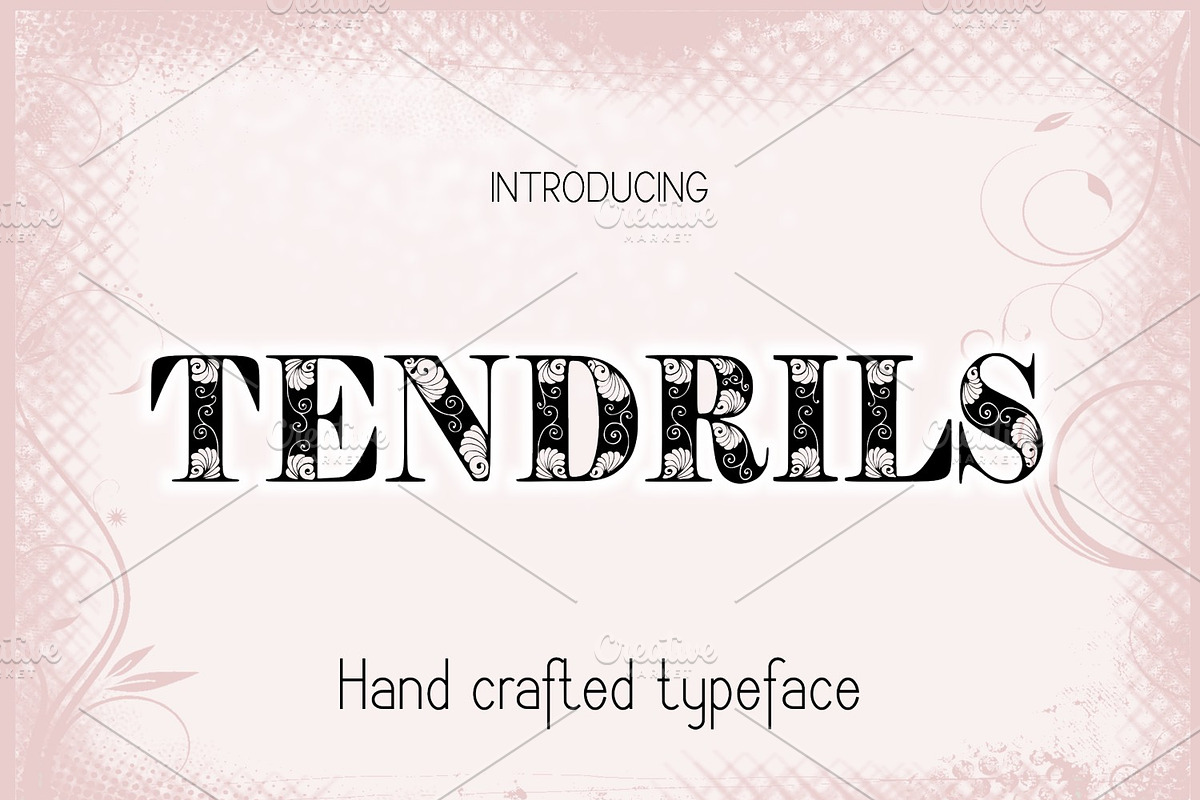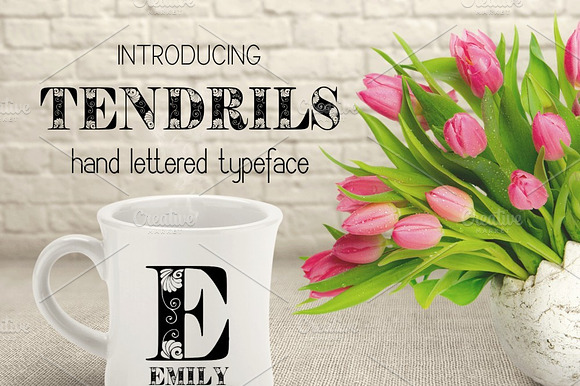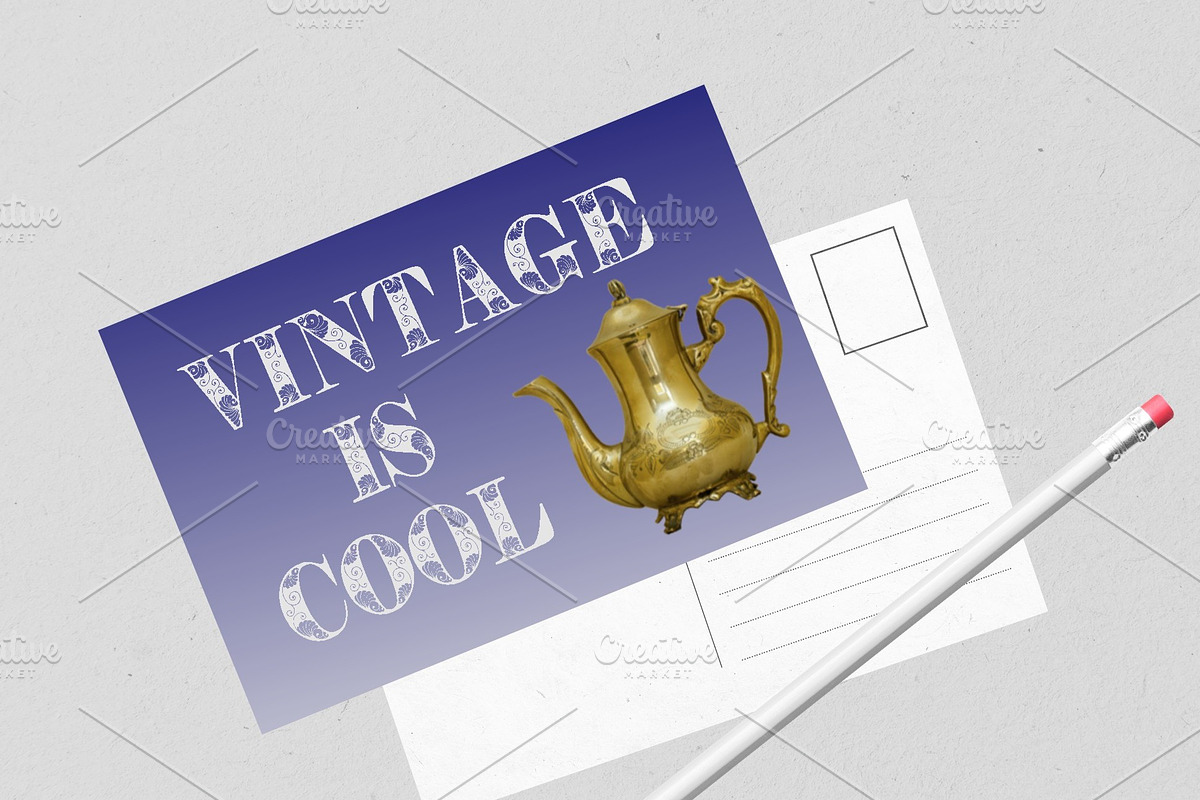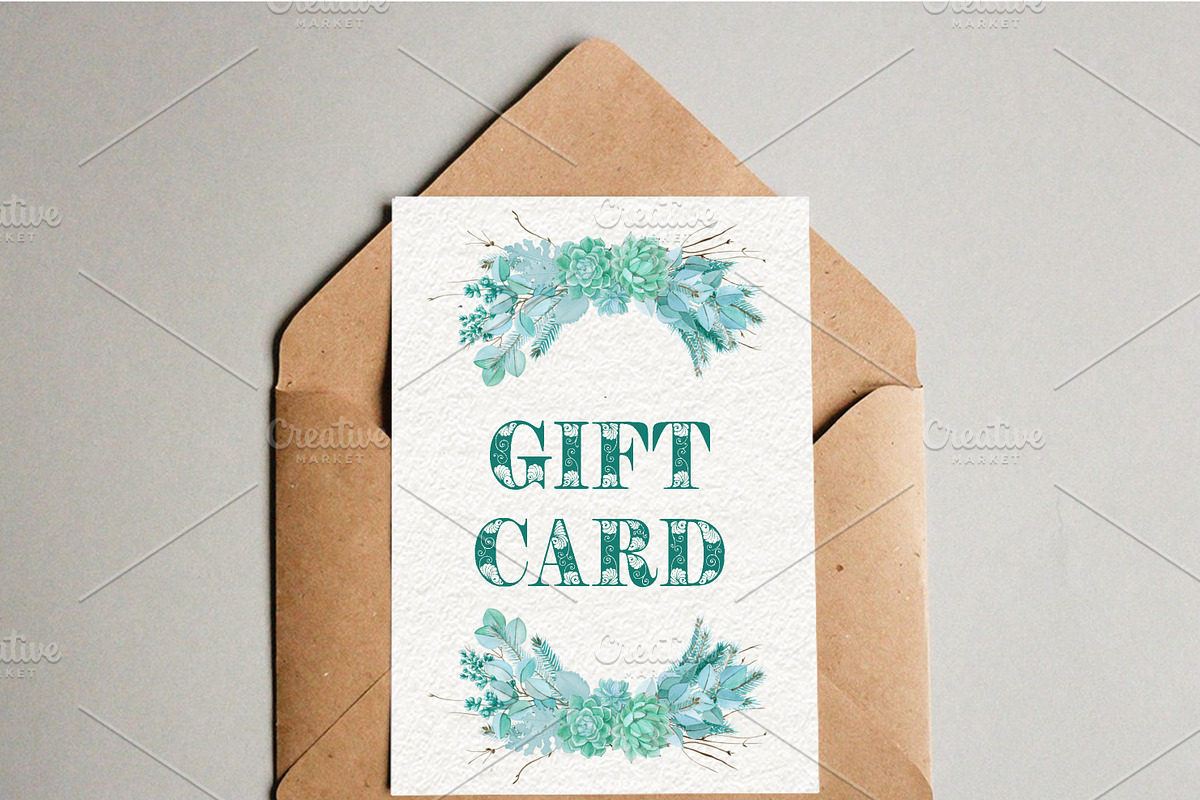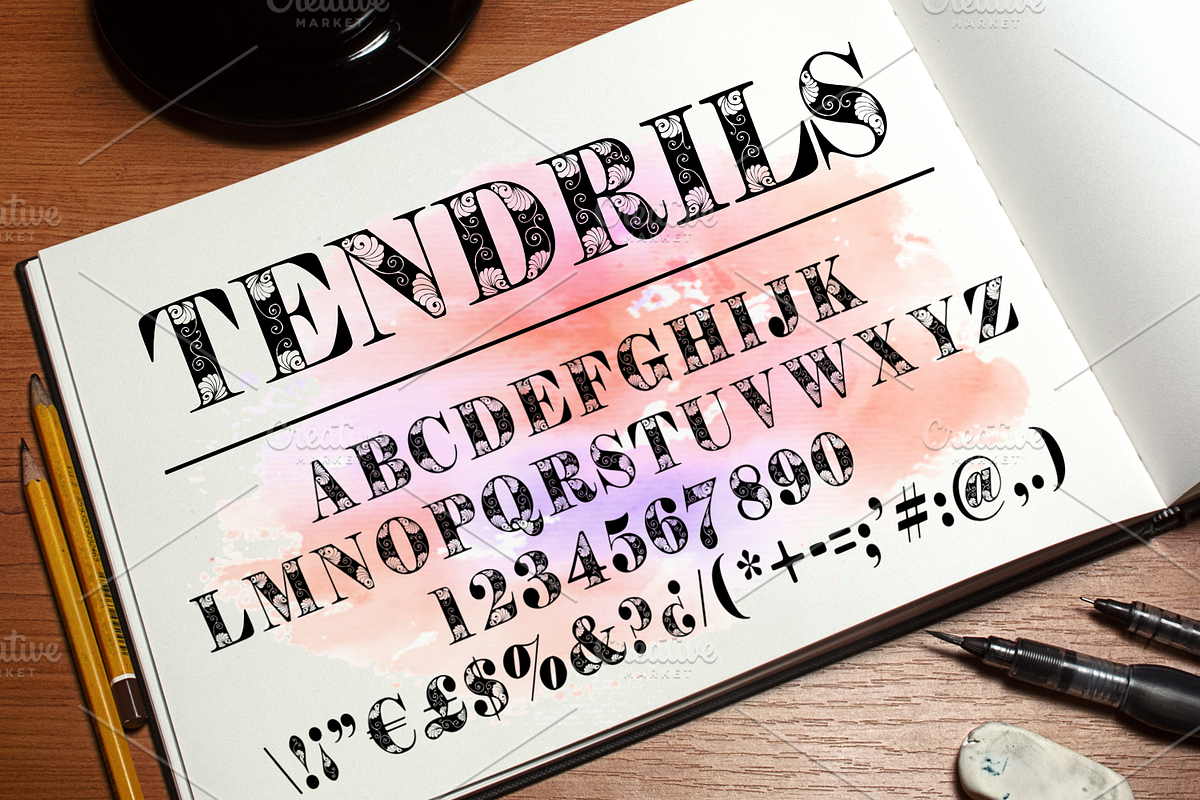
Tendrils Font
Tendrils is a carefully drawn font. Perfect for branding, logos, titling, signage, poster, flyers or t-shirts design, headlines and more!
Why Tendrils Font is worth a look
Tendrils Font by Digital Typeface Studio fits naturally into Branding, posters, packaging, typography.